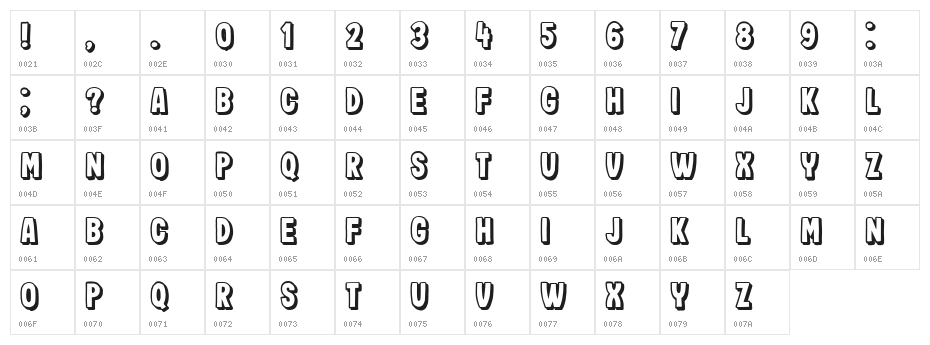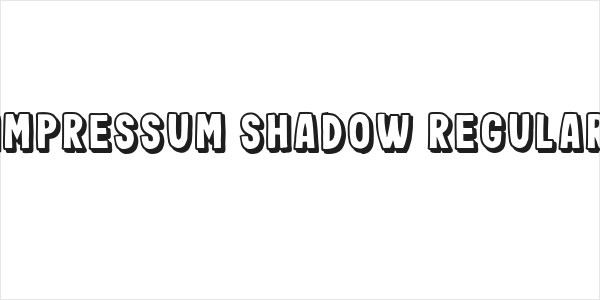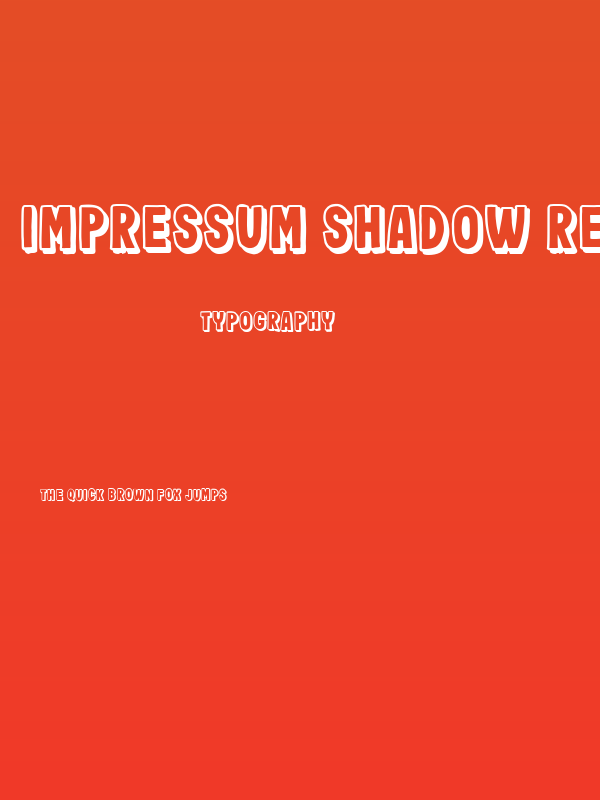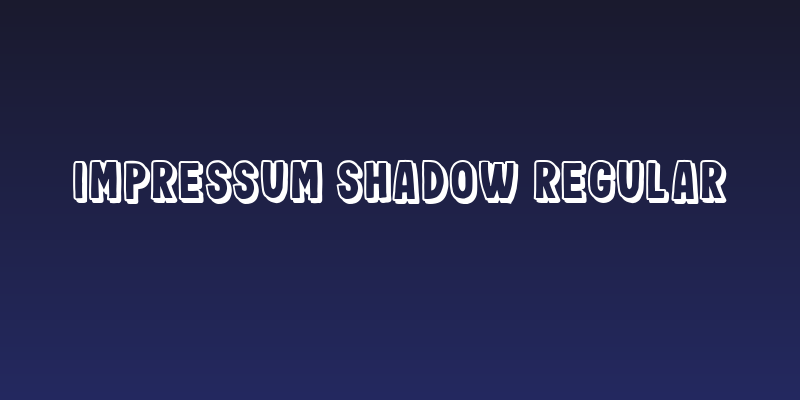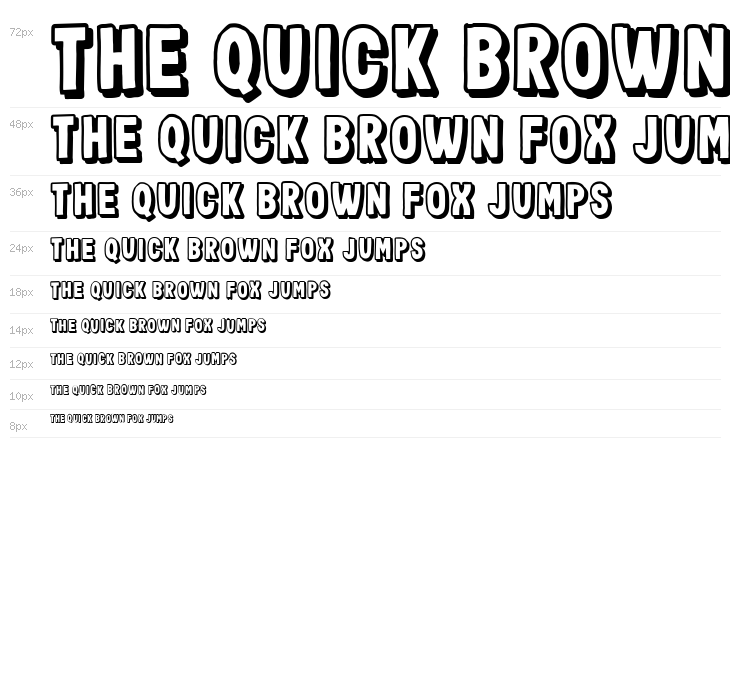
Impressum Shadow Regular Font
Impressum Shadow Regular Description
This font features bold, uppercase letters with a distinct shadow effect that gives it a three-dimensional appearance. The characters are thick and rounded, providing a playful and eye-catching look. The shadow adds depth, making the text stand out against backgrounds. Its style is reminiscent of comic book lettering, with a fun and informal vibe. The numbers and punctuation marks share the same bold and shadowed characteristics, ensuring consistency throughout the typeface.
| Overall Style | Playful, Comic |
| Use Case | Headlines, Posters, Book Covers |
| Proposed Projects | Ideal for comic books, children's book covers, playful posters, and eye-catching headlines. |